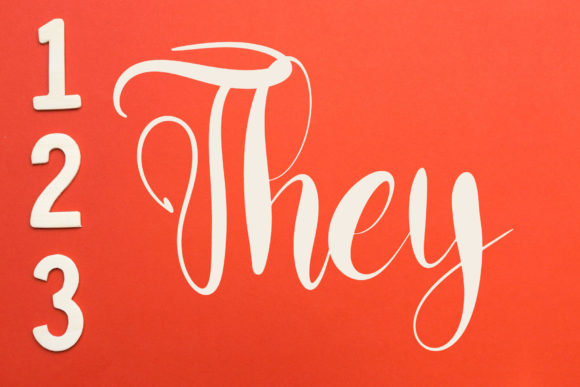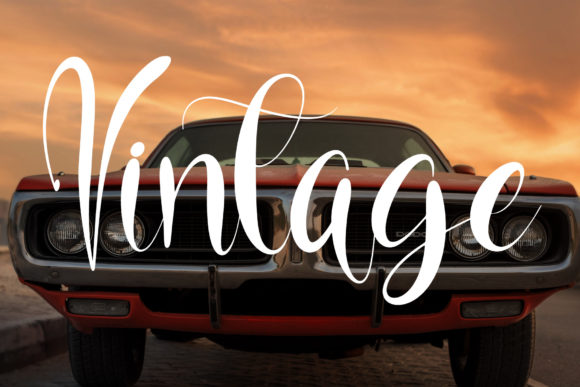
Read Book Font
db-ku.com - Script & Handwritten -- Read Book is a stylish and delicate script font. It is perfect for product packaging, branding project, magazine covers, social media, wedding, or just used to express words above the background.